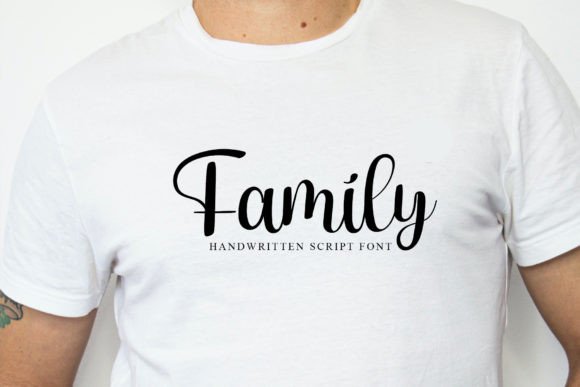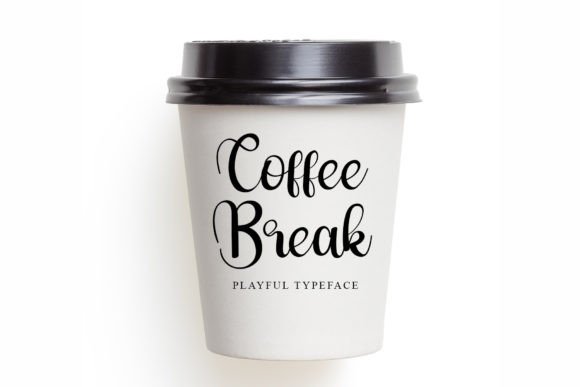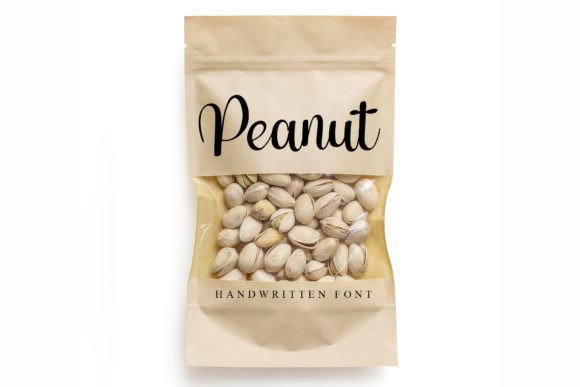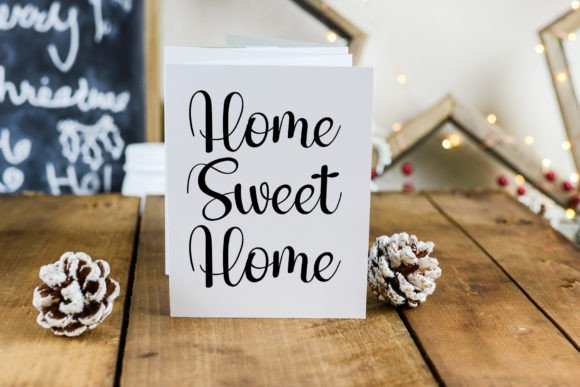
Chips Font
About Chips Font
**Chips** is not just a font; it’s a beautiful handwritten expression meticulously crafted for elegance and versatility. This font is an ideal choice for a range of designs, including wedding invitations, greeting cards, billboards, logos, business cards, and any project that benefits from a handwritten touch.
The allure of **Chips** lies in its carefully designed features, showcasing a varied baseline that adds a dynamic and artistic touch to your text. This nuanced baseline ensures that your creations aren’t just visually striking but also exude a natural and authentic feel. It’s like an artful brushstroke transformed into a font, bringing an authentic touch to make your ideas look more real.
Whether you’re designing materials for a wedding celebration, creating eye-catching billboards, or establishing a unique brand identity with a logo, **Chips** is the font that elevates your text with a handwritten flair. Its adaptability allows it to seamlessly blend into various design contexts, ensuring that your projects stand out with elegance and sophistication.
The careful craftsmanship of **Chips** ensures that each character is designed with precision, resulting in a font that is both aesthetically pleasing and authentic. Let this font be the expressive brushstroke that adds an artistic touch to your designs.
In summary, **Chips** is the beautiful handwritten font designed for elegance and versatility. With a varied baseline and meticulously crafted features, it’s perfect for wedding invitations, greeting cards, billboards, logos, business cards, and more. Let your ideas come to life with a font that adds a touch of handwritten charm and authenticity to your creations.